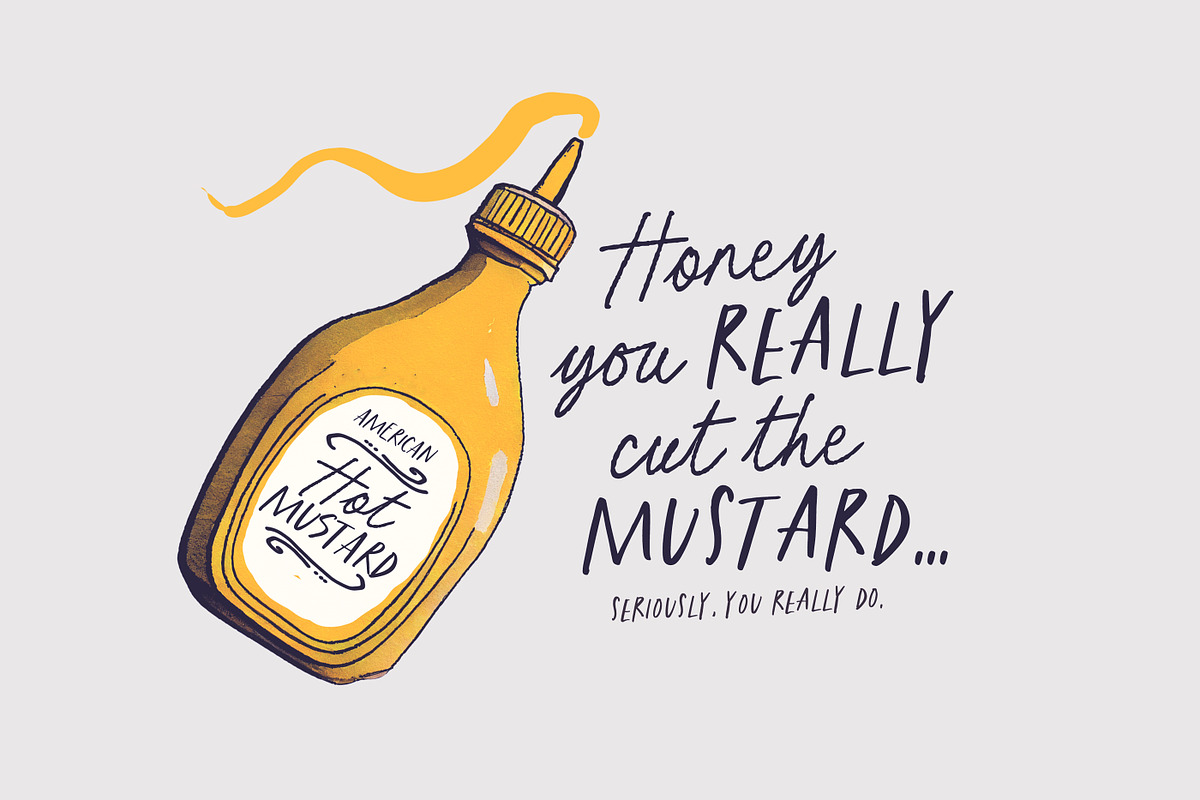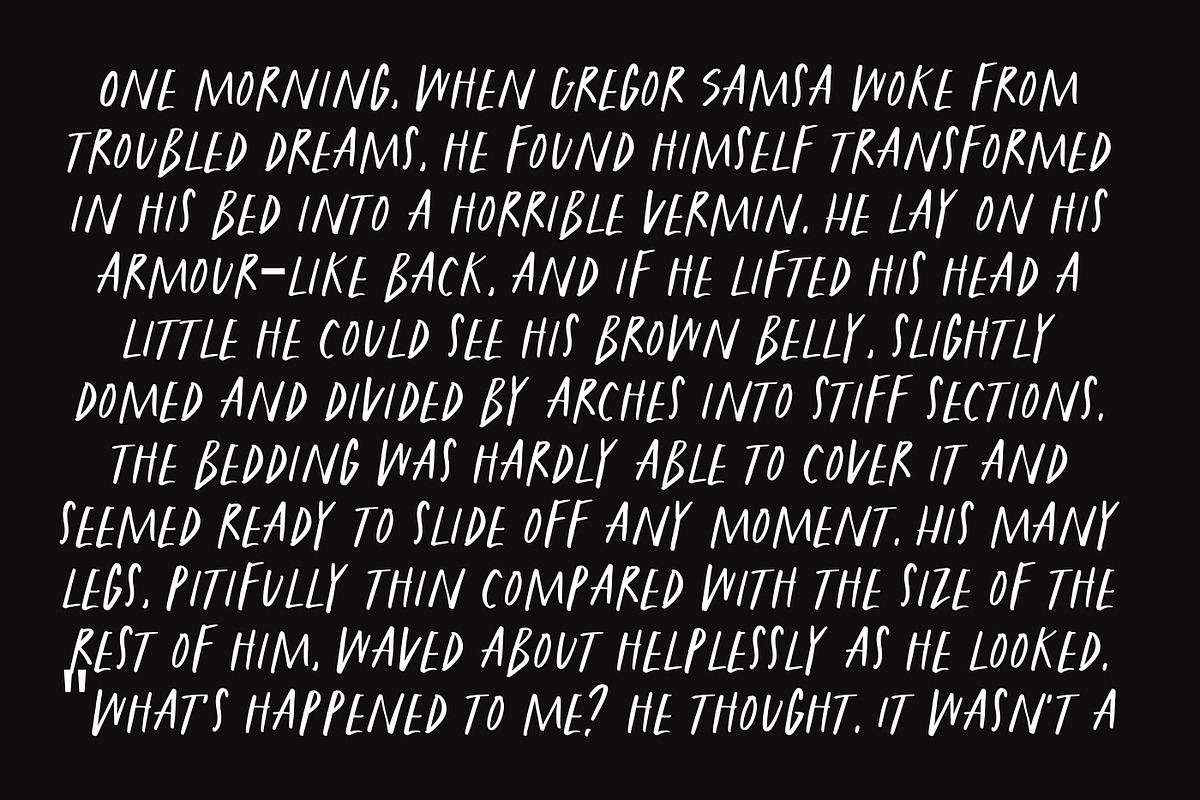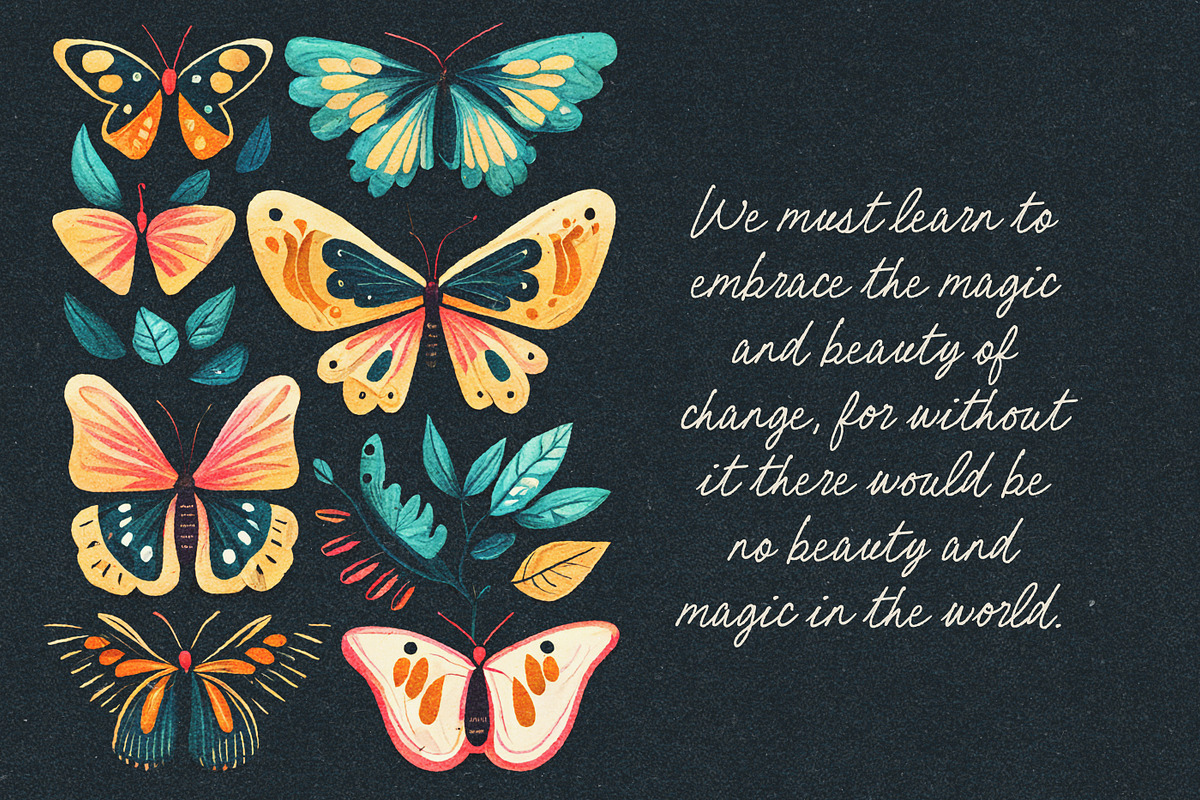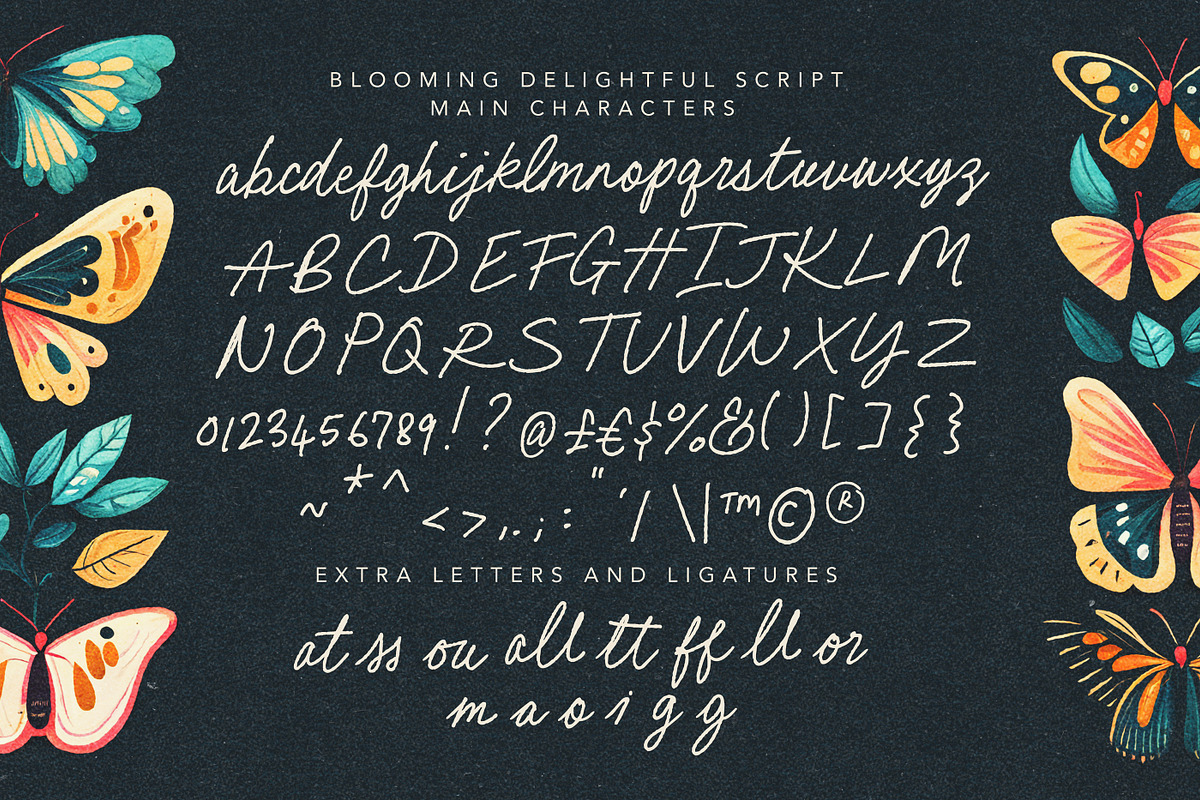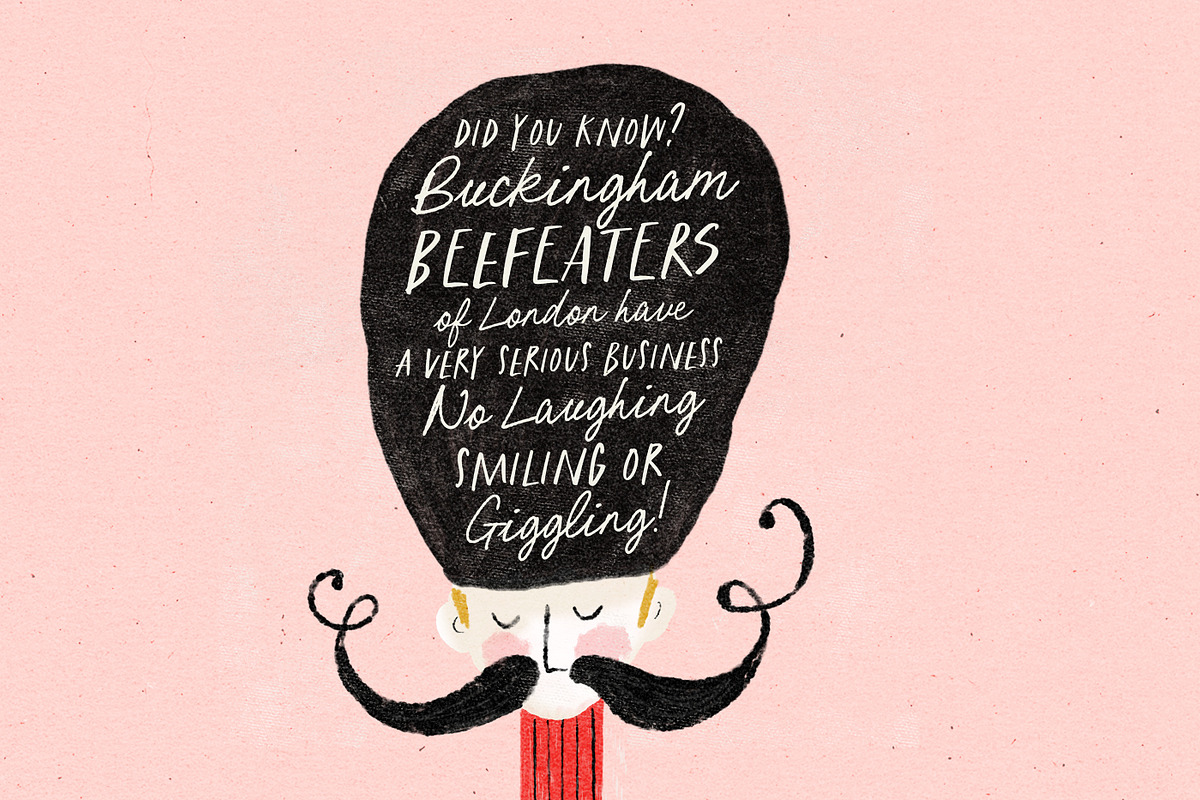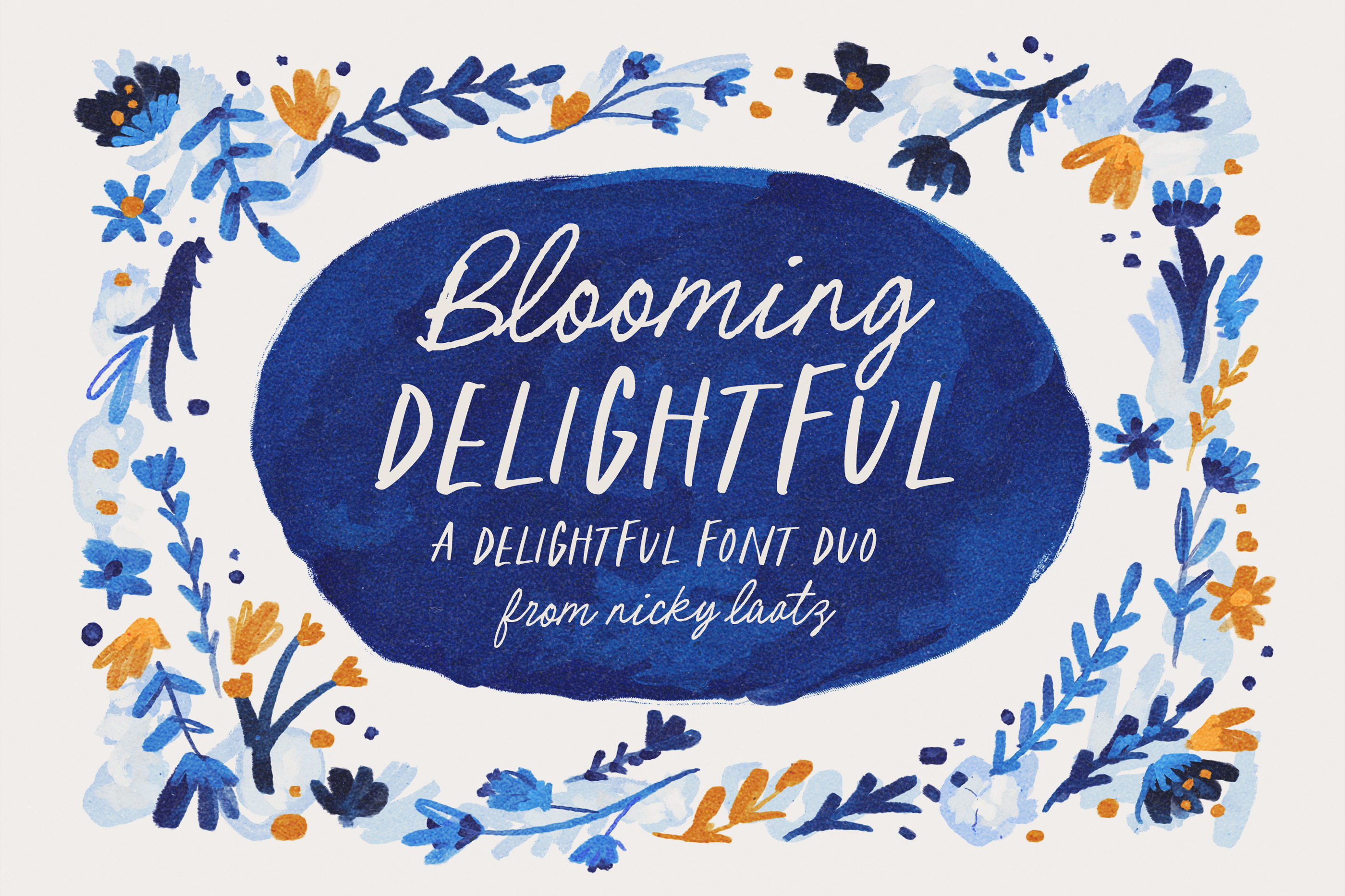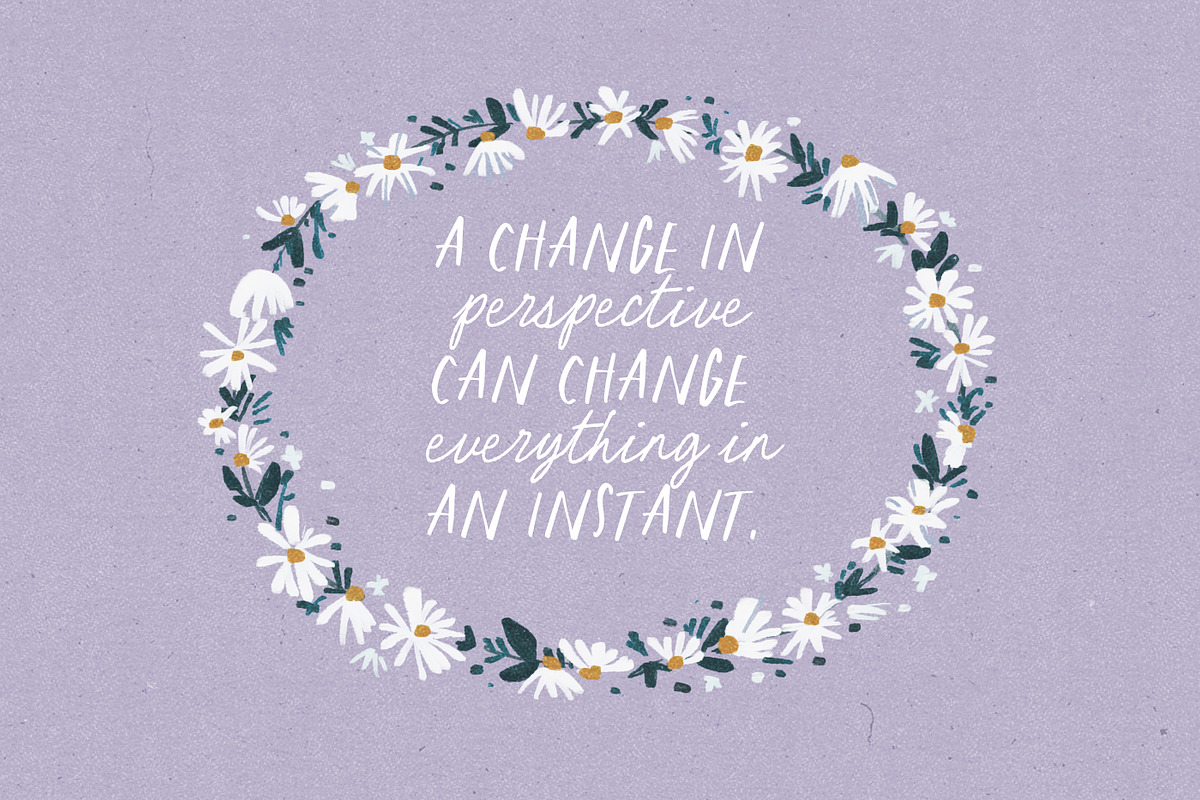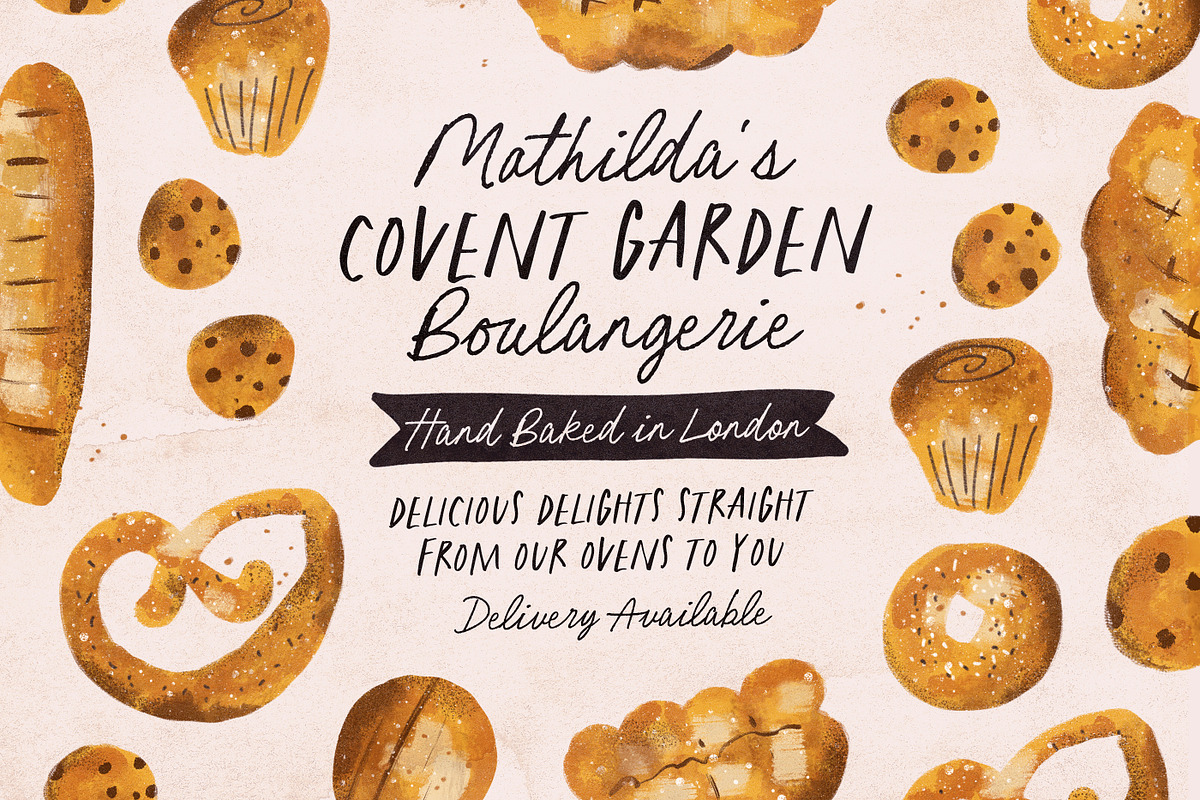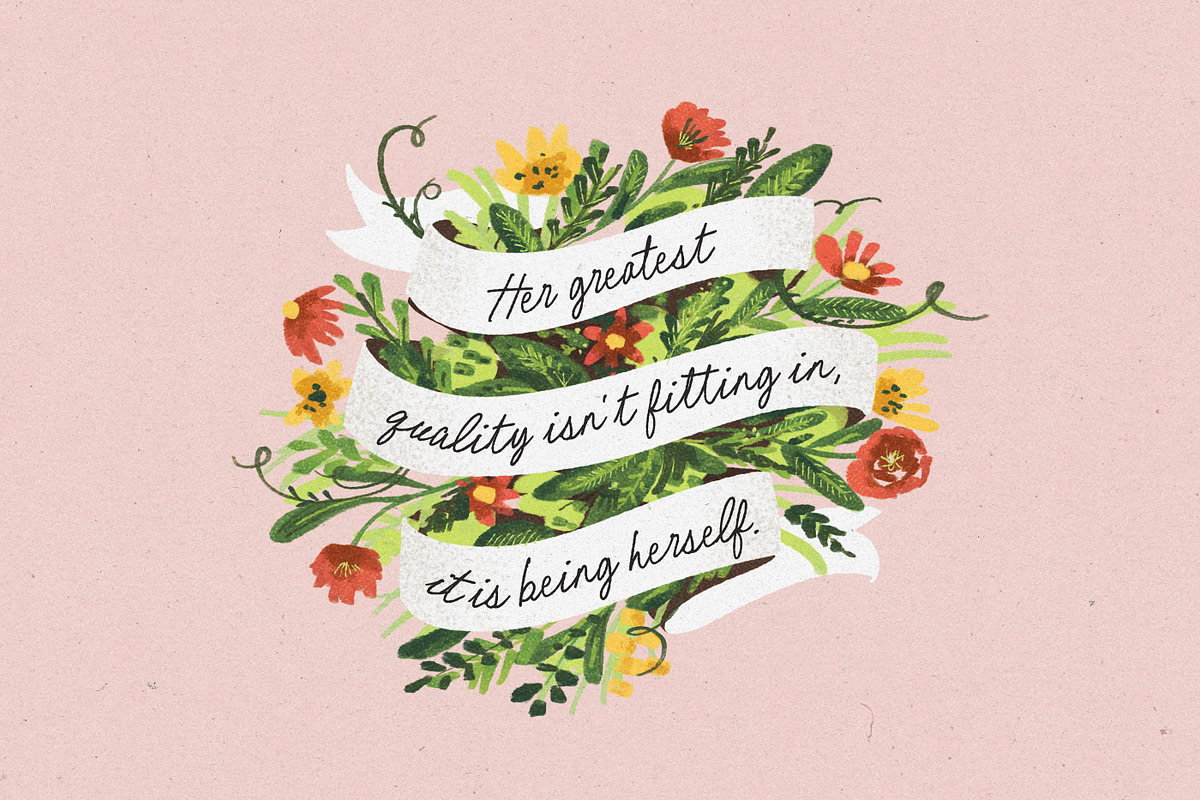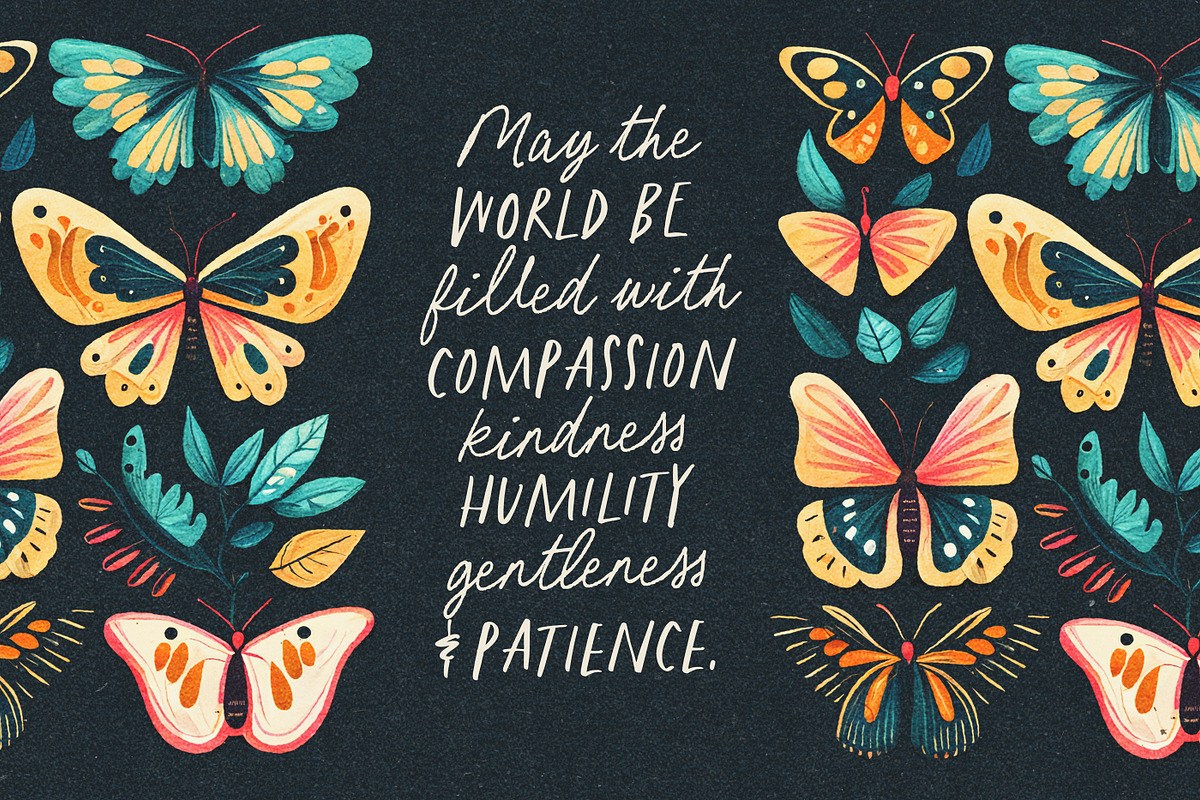
Blooming Delightful Font Duo
Say hello to The Blooming Delightful Font Duo! A charming little pair of fonts, one all caps and one script :) Perfect for illustrative works, whimsical greetings, playful book covers, charming quote designs, delightful packaging designs and so much more.
The script includes some double letter Opentype Ligatures, to make the font appear more like real handwriting , than a font.